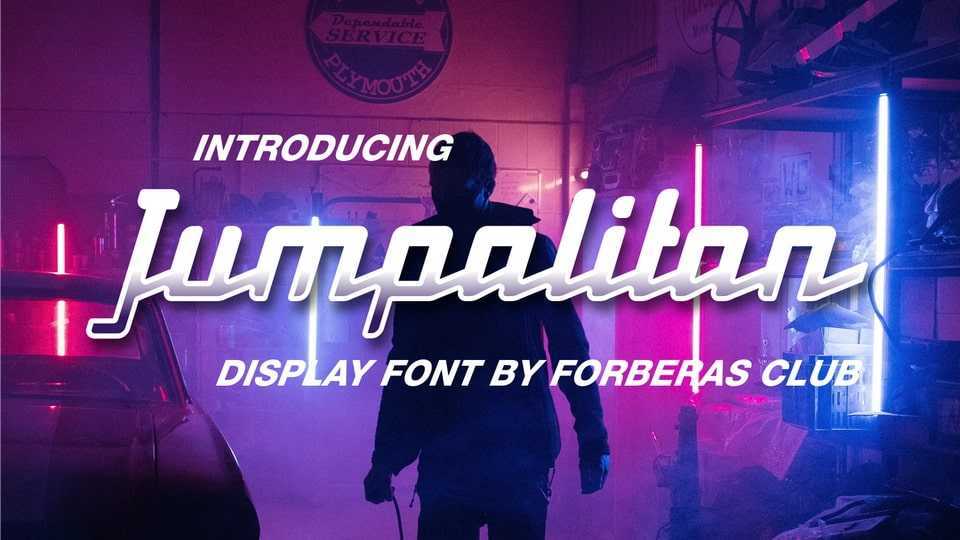
Download Jumpalitan font, a display script typeface especially designed for games, technology projects. Jumpalitan font is perfect for creating modern and chic designs such as logos, packaging, editorials and more.